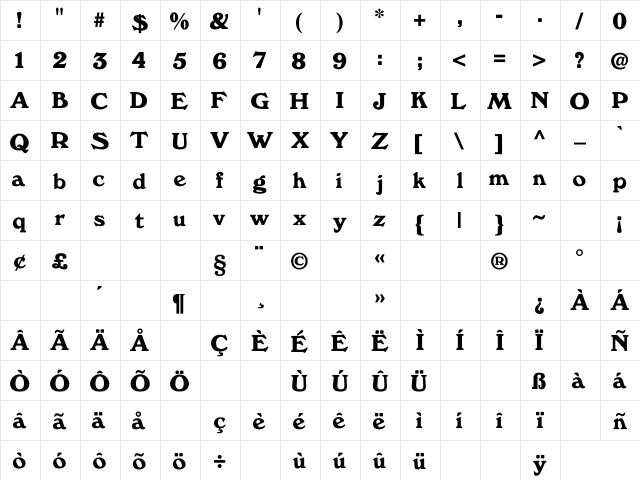
WindsorDemi.fog Regular Font Preview
WindsorDemi.fog Regular
WindsorDemi.fog Regular Font Details
Design Context for WindsorDemi.fog Typeface
WindsorDemi.fog is a composed and adaptable typeface that performs quietly and consistently across a wide range of design contexts.